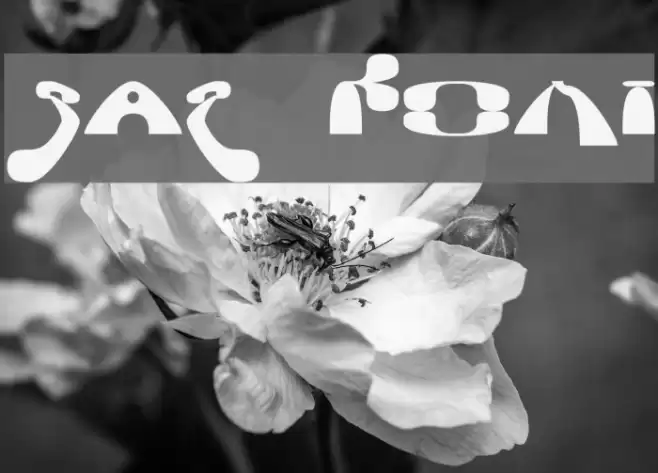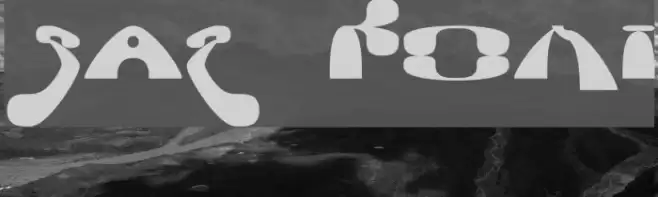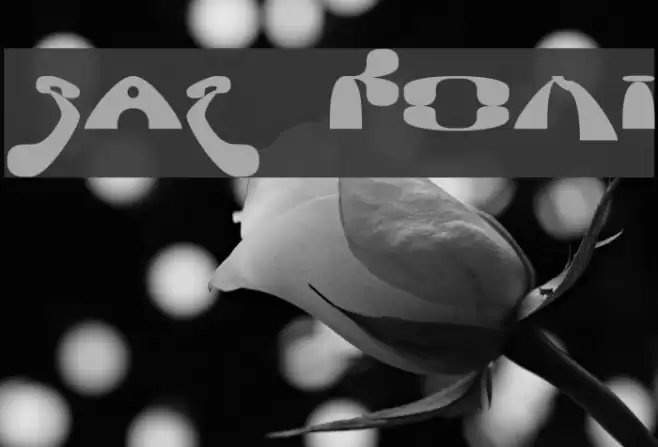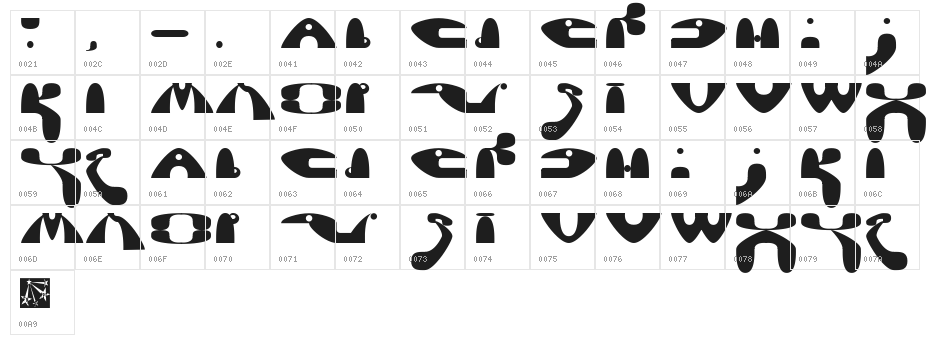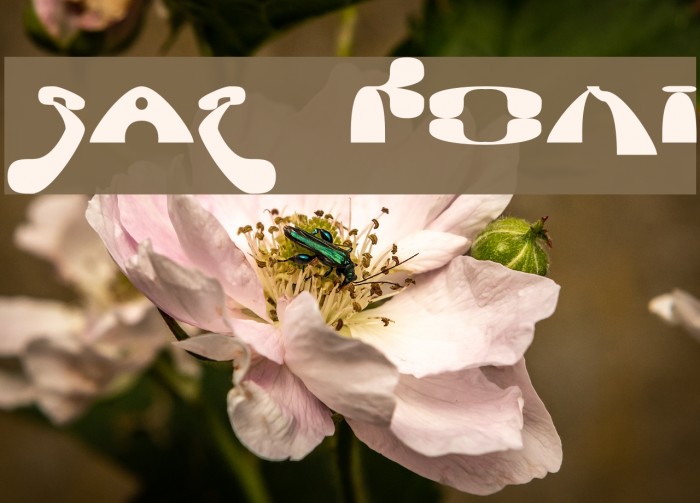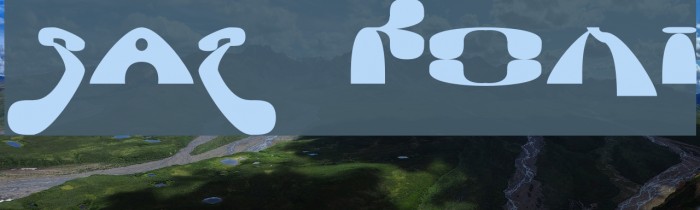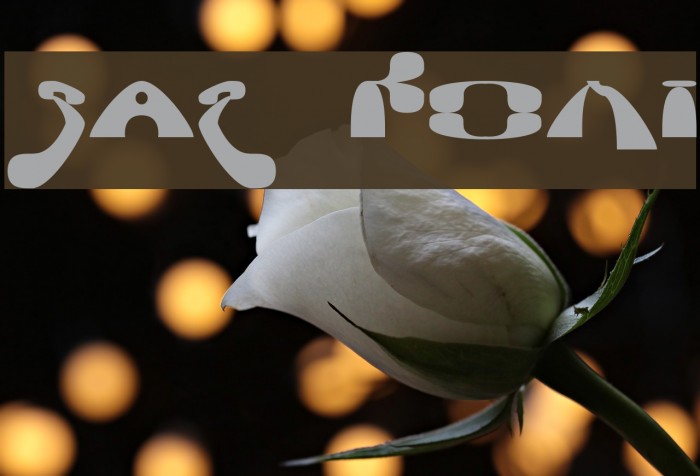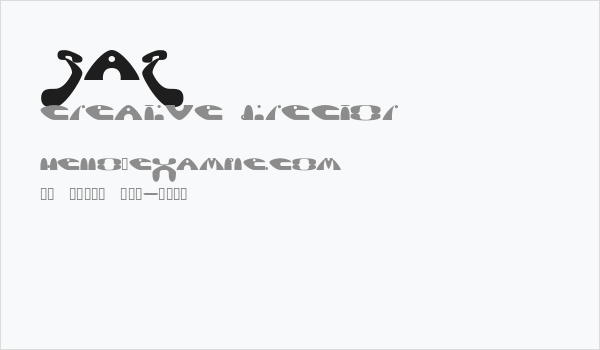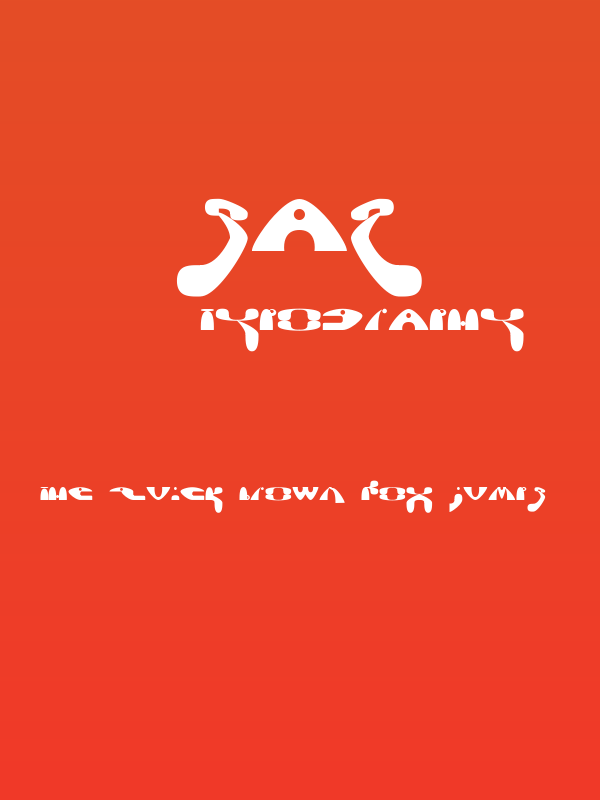
Saz Font
Saz Description
This font features a highly decorative and abstract design, characterized by bold, geometric shapes that form each letter. The characters are composed of thick, rounded forms with unique cutouts and curves, giving them a playful and artistic appearance. The uppercase and lowercase letters share a similar style, maintaining consistency throughout the typeface. The numerals and special characters follow the same design principles, ensuring a cohesive look. This font's distinct style makes it stand out, ideal for creative and unconventional projects.
A bold, abstract font with geometric shapes and playful curves from Futuristic fonts.
- Proposed Projects: Ideal for artistic posters, album covers, modern art installations, and branding for creative industries.
- Overall Style: Modern, Decorative